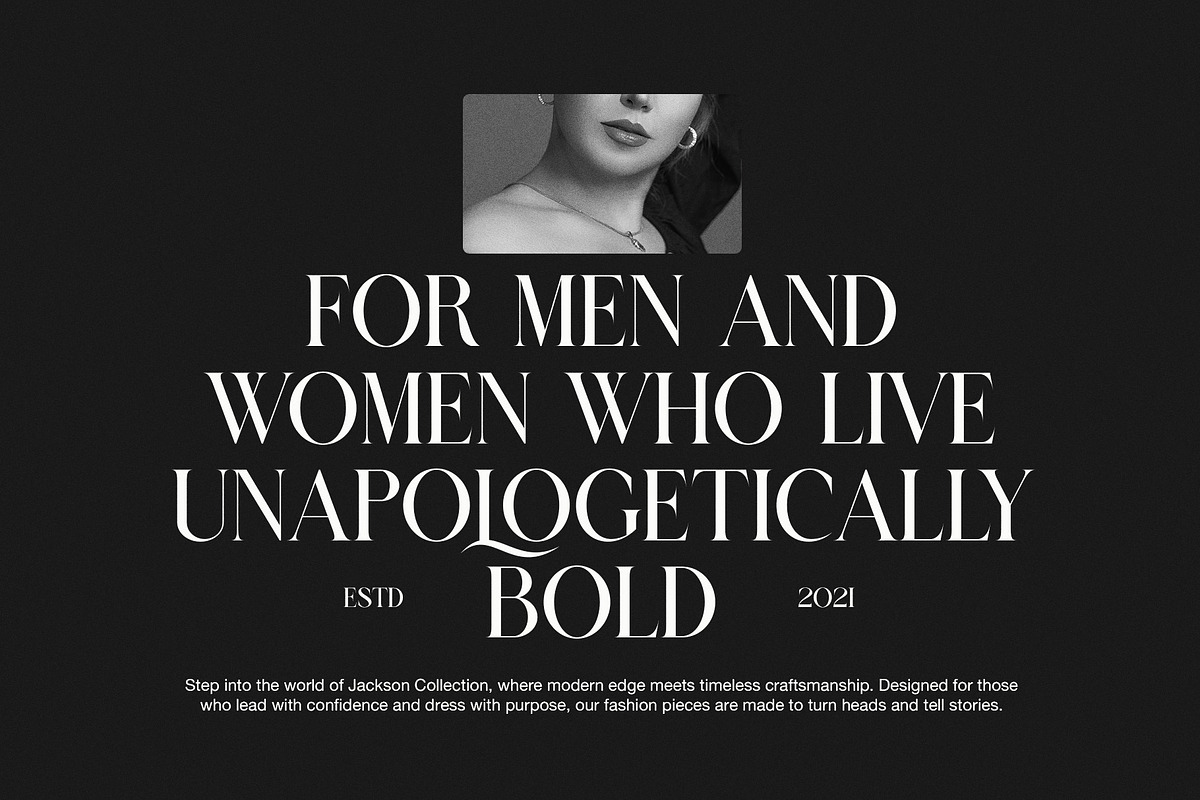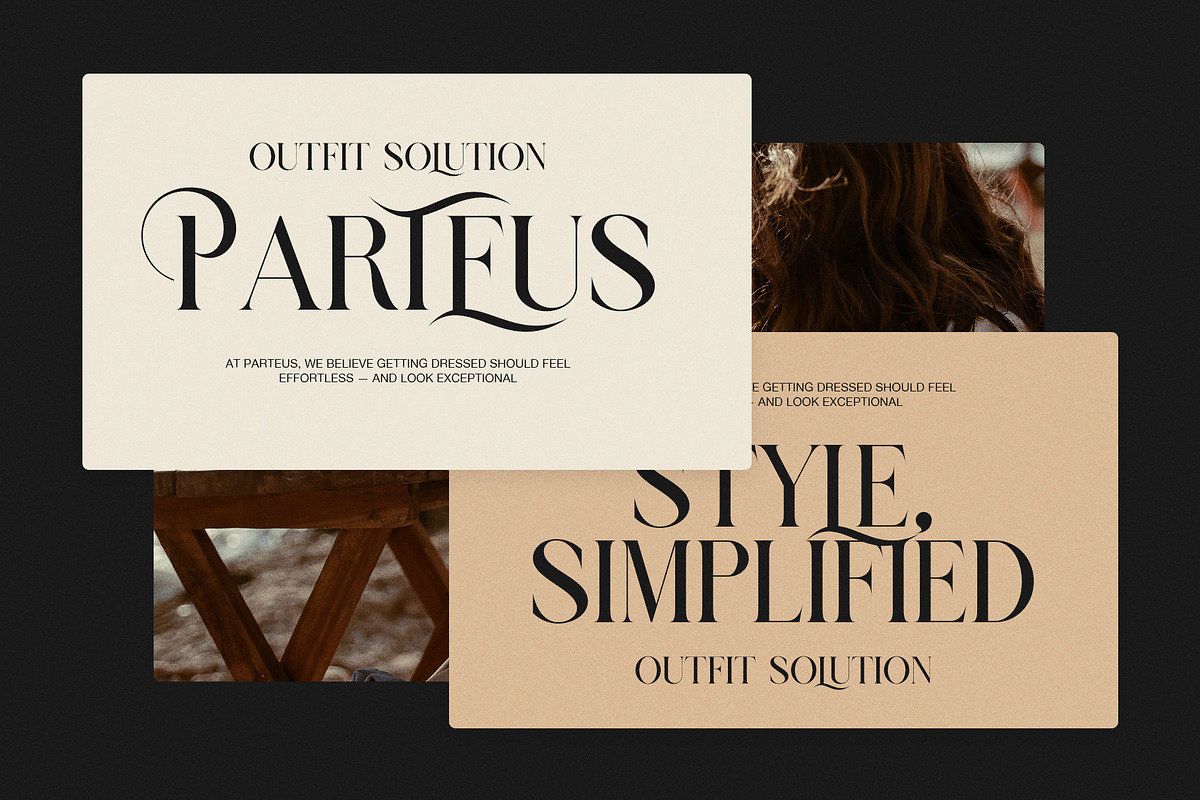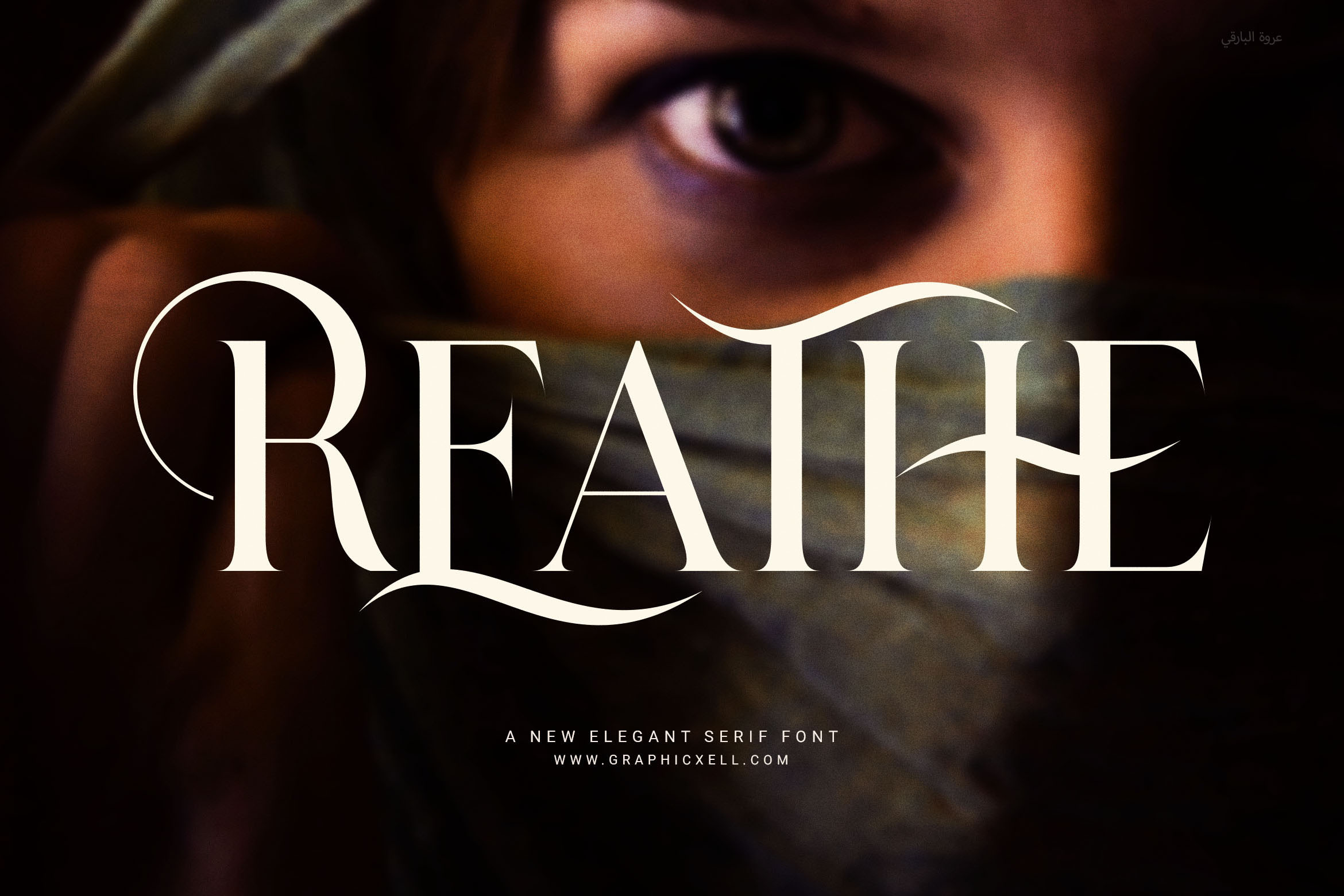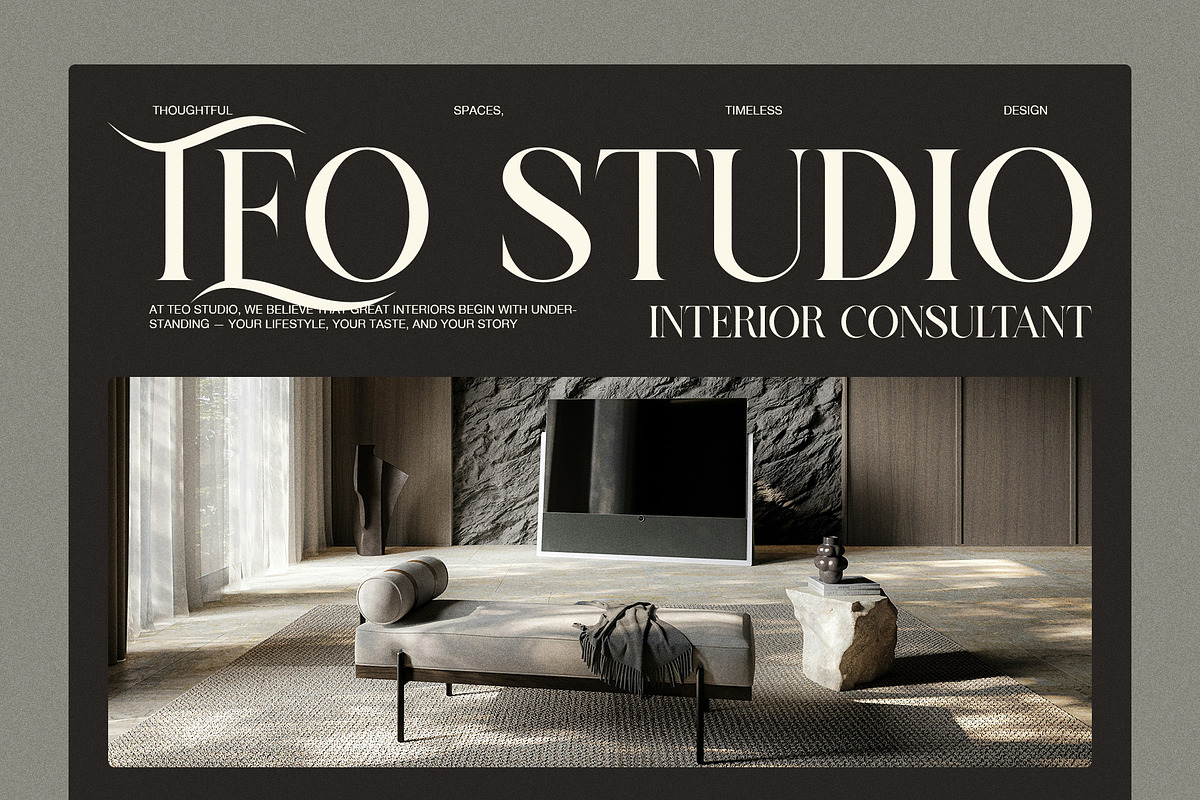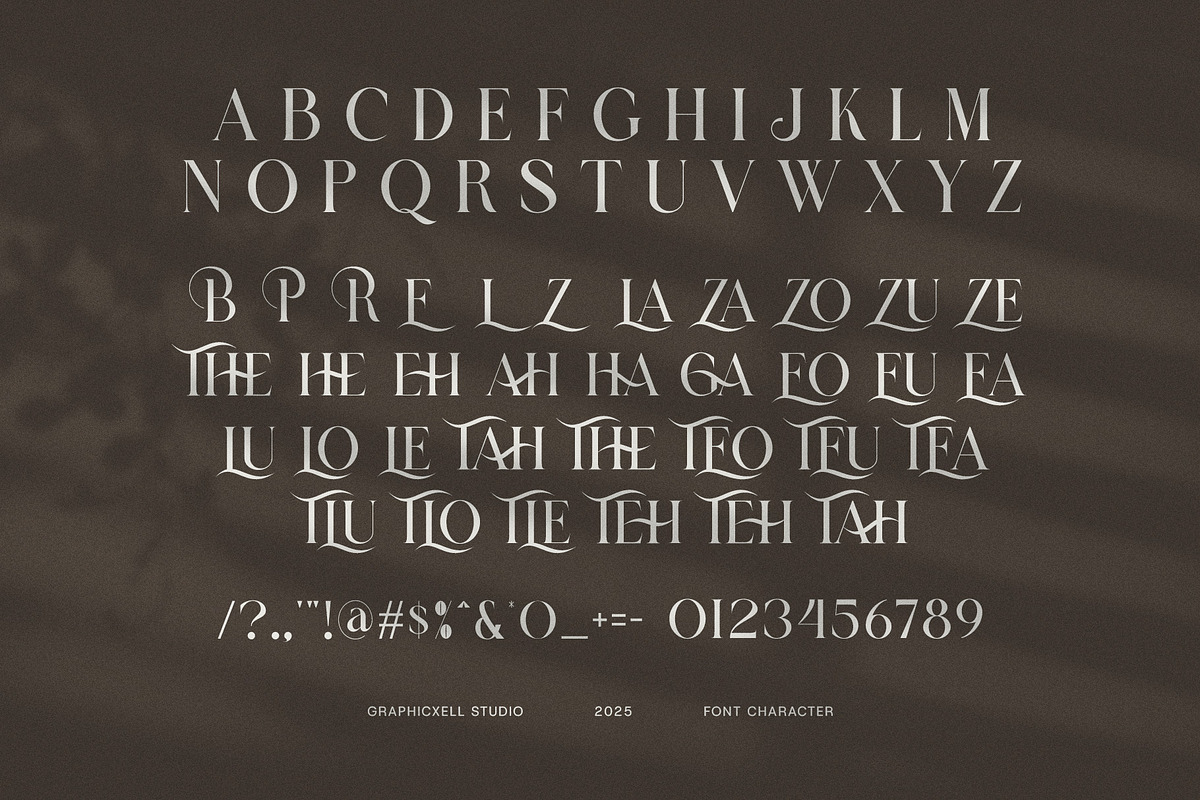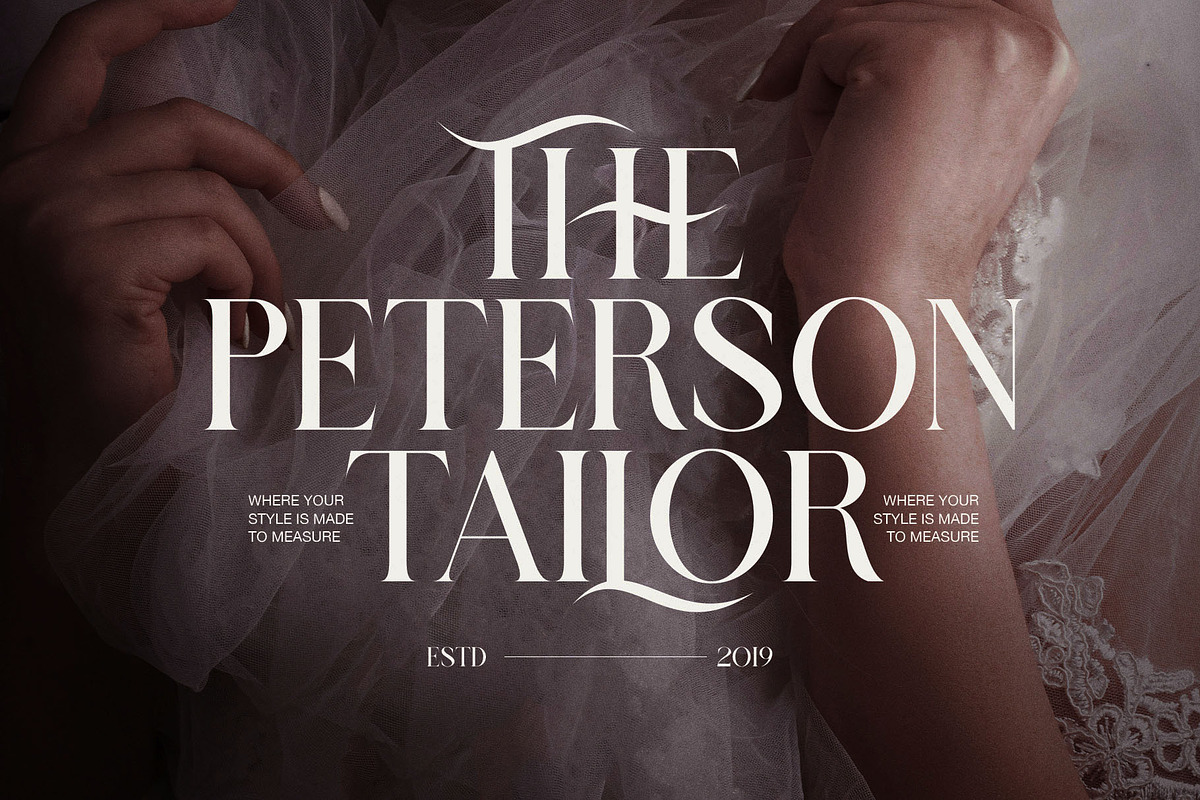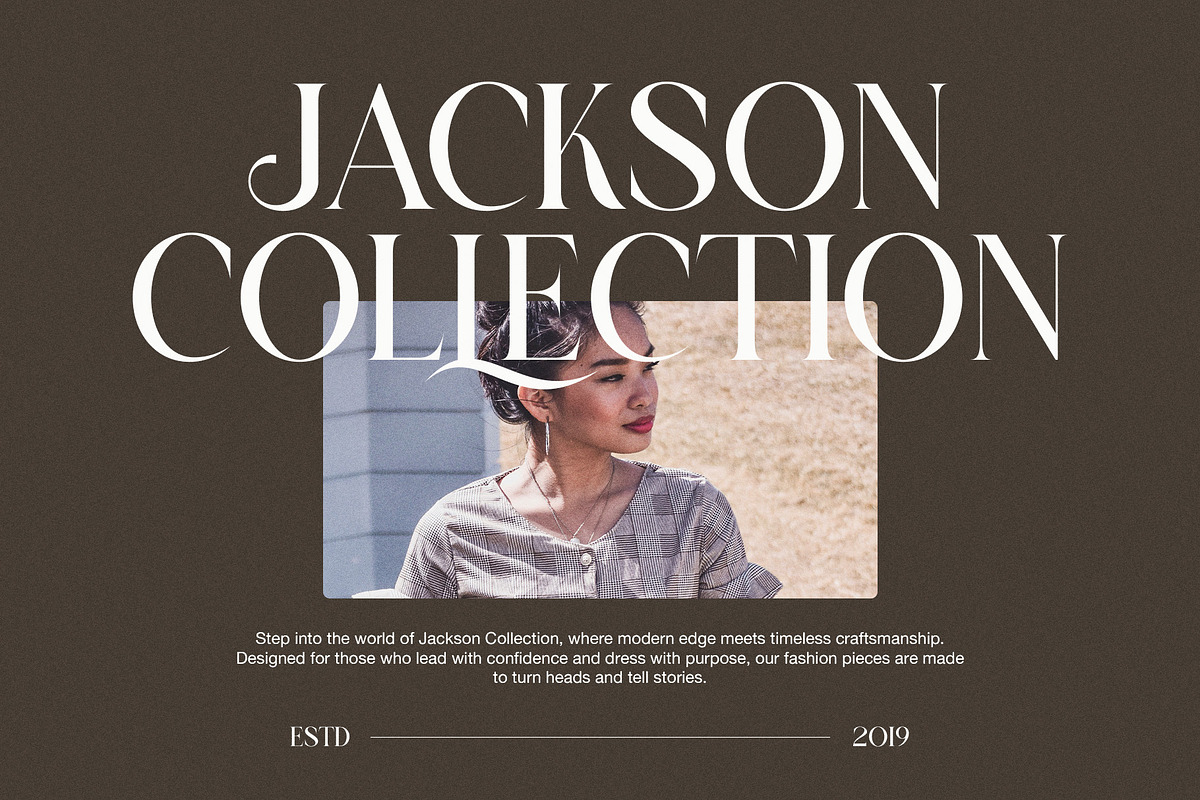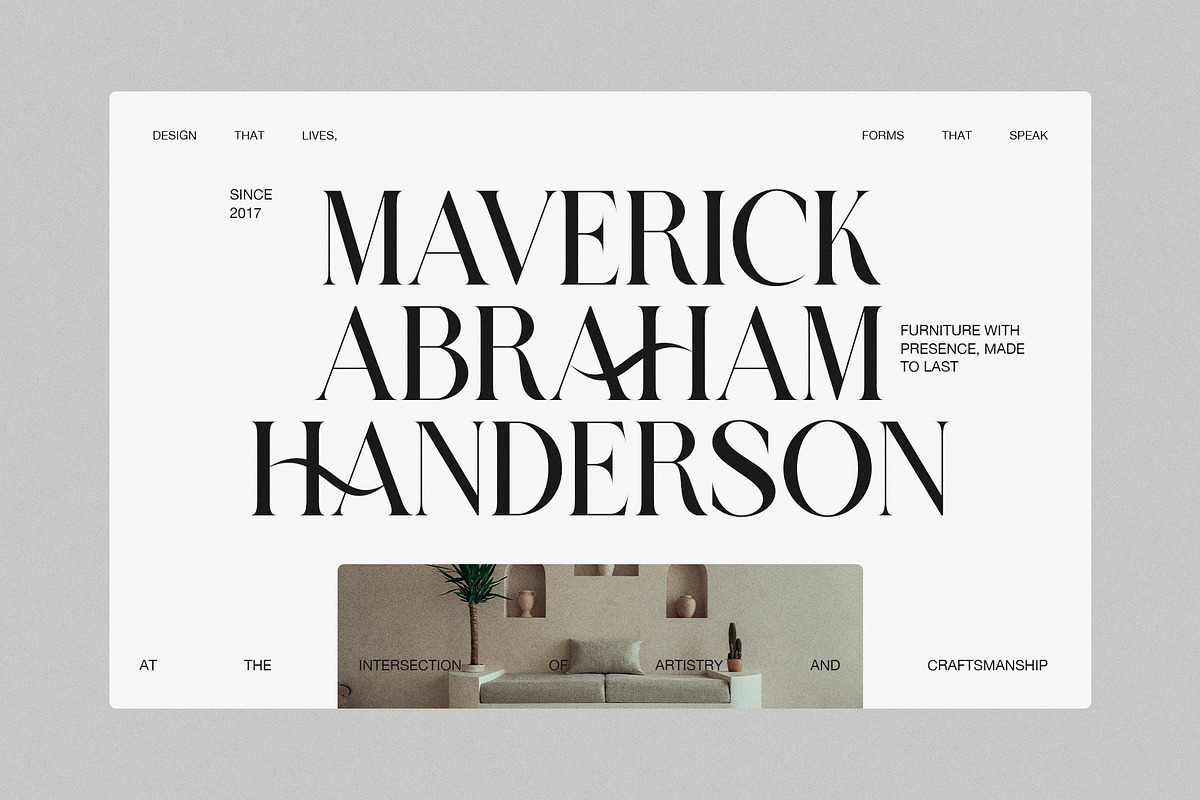
Reathe Elegant Serif Font
Reathe Elegant Serif Font is a modern serif typeface that adds a timeless and graceful touch to your designs. While it offers a classic feel, it also brings in a fresh, updated style that works beautifully across many design needs. With clean lines and smooth curves, Reathe creates a refined and confident look in every layout.
Because the font was built with proportion and detail in mind, it easily fits into both digital and print designs. Whether you’re designing a bold logo or a stylish magazine layout, Reathe helps you deliver a professional, polished result every time.
Moreover, it includes functional ligatures that add flow and charm to your typography. These ligatures are perfect for branding, fashion labels, product packaging, and social media content. They allow your words to feel more custom and crafted—without needing extra adjustments.
✨ Ideal for:
Fashion & beauty branding
Product packaging & labels
Elegant website headlines
Wedding invitations & cards
Magazines & blog layouts
Boutique logos & ads
High-end social content
Creative design projects
✏️ Why Designers Choose Reathe:
Not only is Reathe stylish and modern, but it’s also practical and easy to use. Its soft elegance and smart ligatures add a luxury feel to any design. Plus, it’s flexible enough for both personal and commercial projects.
If you want a font that looks elegant, feels modern, and works across all formats, Reathe Elegant Serif Font is a smart choice for any designer.